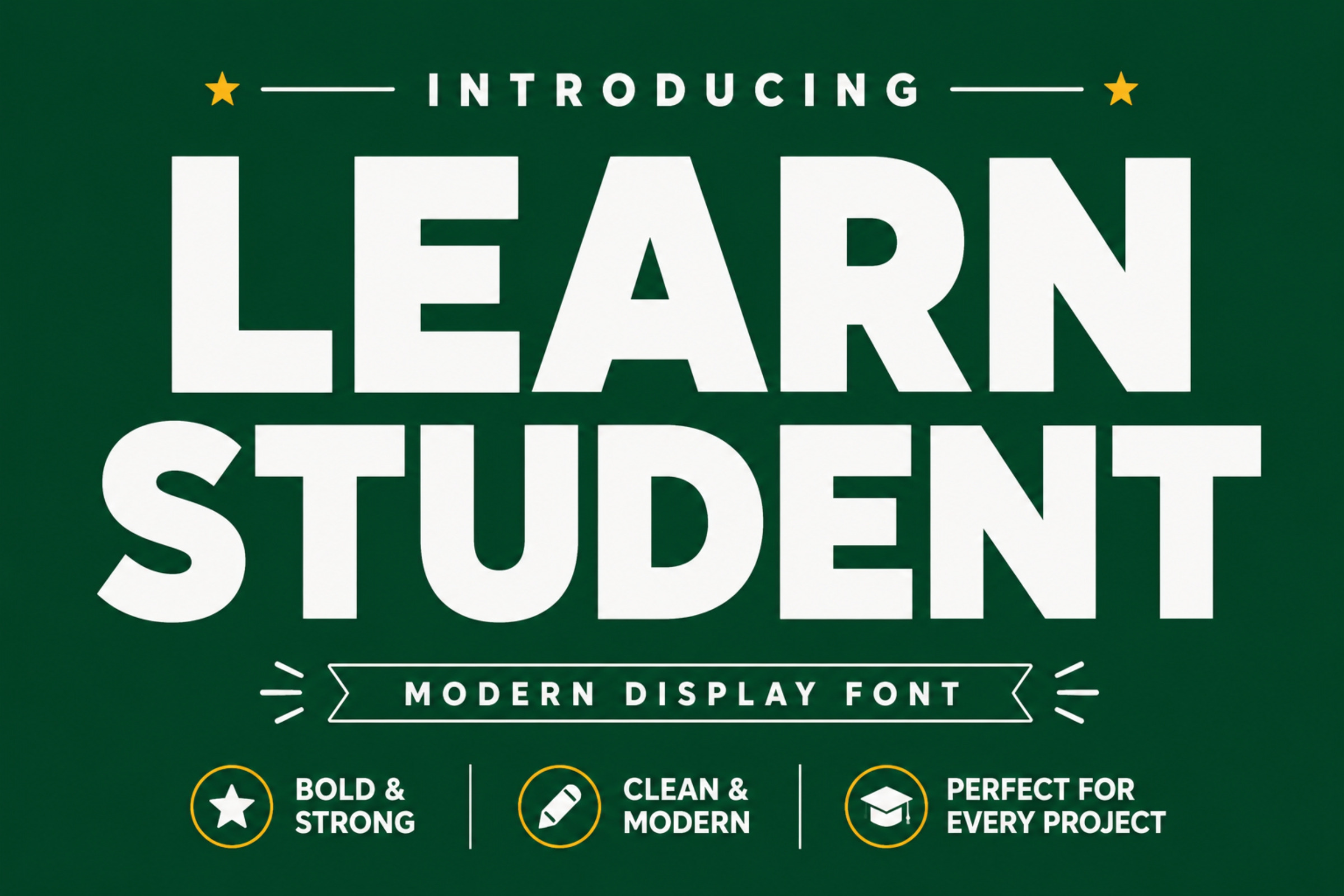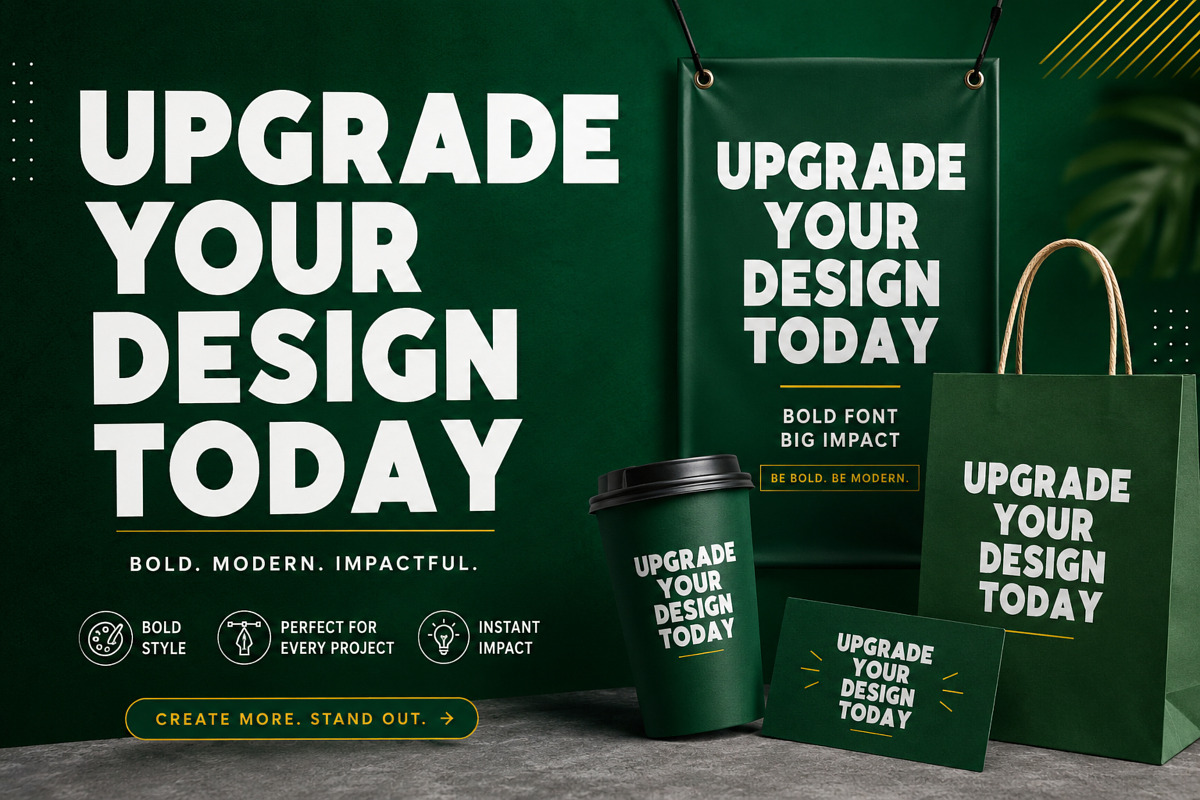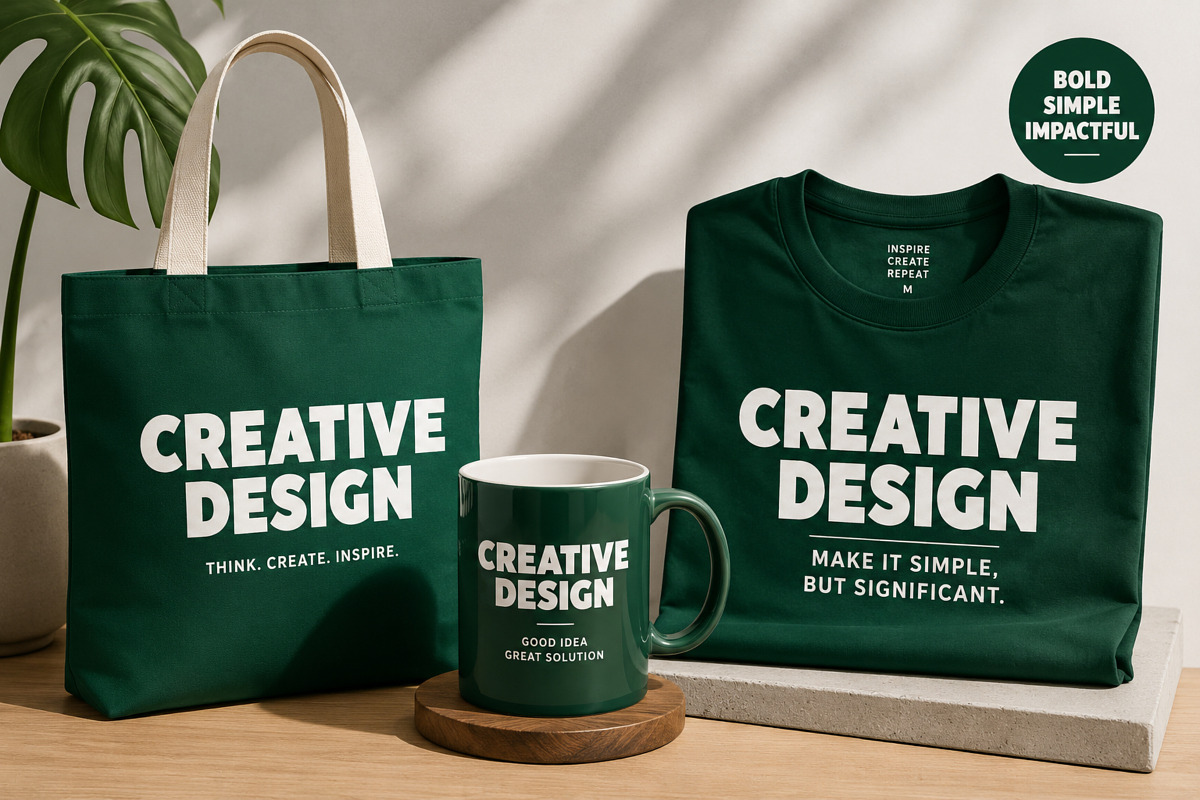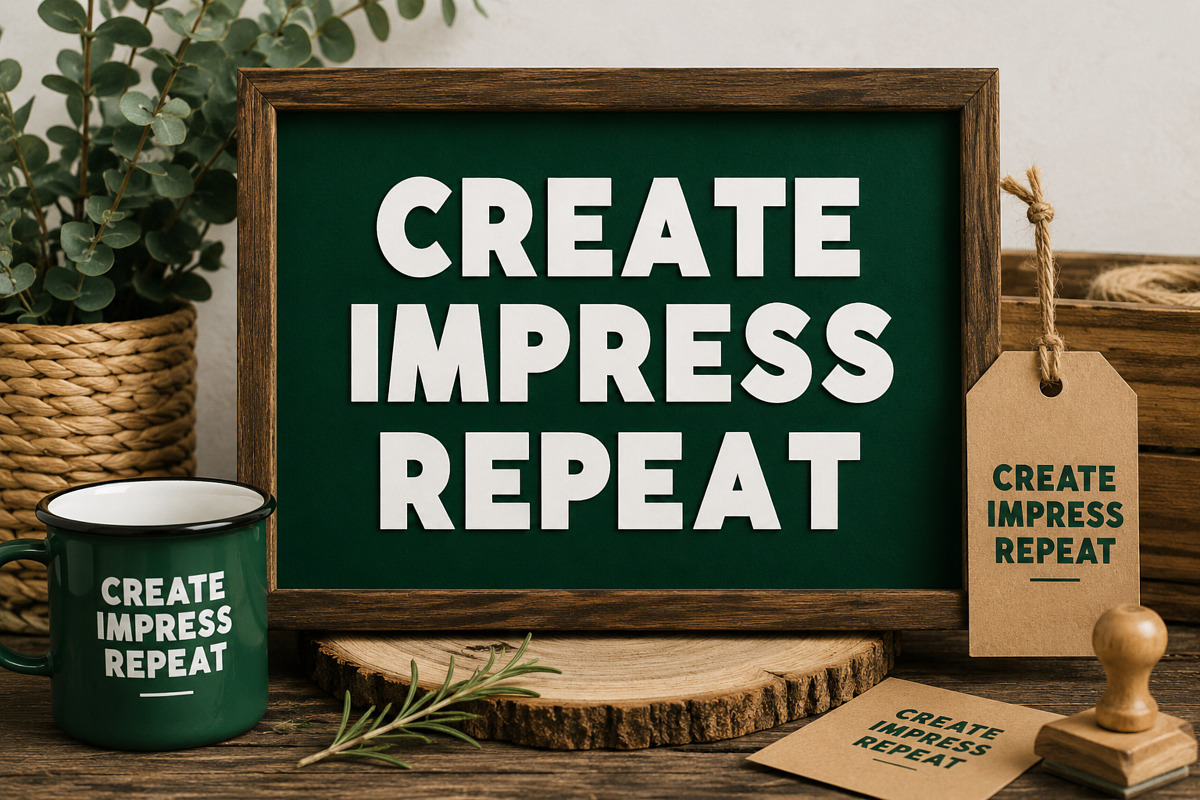
Learn Student – Bold Modern Font
Learn Student is a bold modern display font featuring clean geometric letterforms, strong proportions, and excellent readability. Its contemporary style makes it perfect for educational branding, school-themed designs, kids' projects, advertising, packaging, logos, posters, social media graphics, and eye-catching headlines.
Whether you're creating classroom decorations, learning materials, printable worksheets, YouTube thumbnails, merchandise, or modern branding, Learn Student delivers a fresh, energetic, and professional appearance.